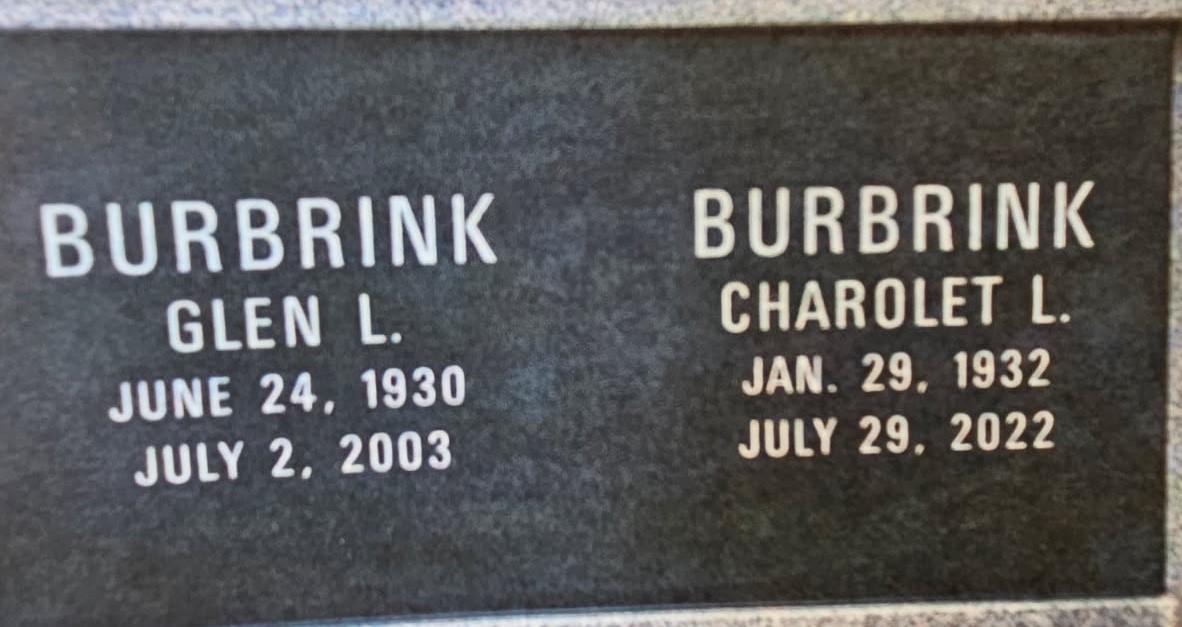
Common Gothic, sort of?
this is on a columbarium in Peoria Illinois. (Cemetery has no clue who manufactured) We need to copy for additional inscriptions- its very close to Common Gothic- also similar to Arial narrow, and Helvetica condensed. The death dates (2003) are a give away, as to approx. time of sandblast.
Did someone put this in a CAD program? Any help greatly appreciated!
Hello, this is a font named Univers 57.